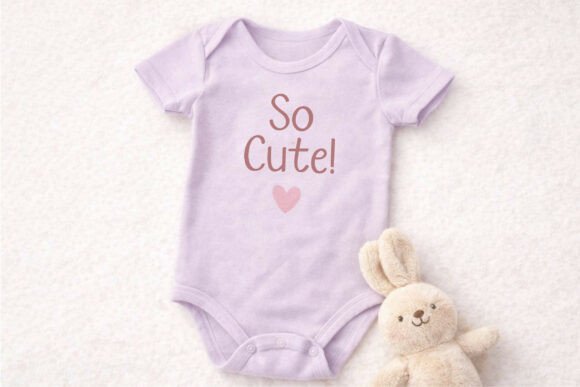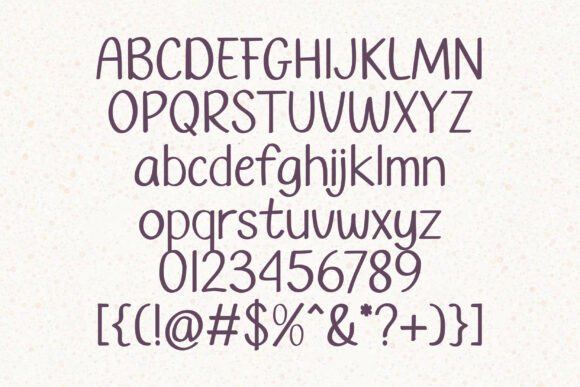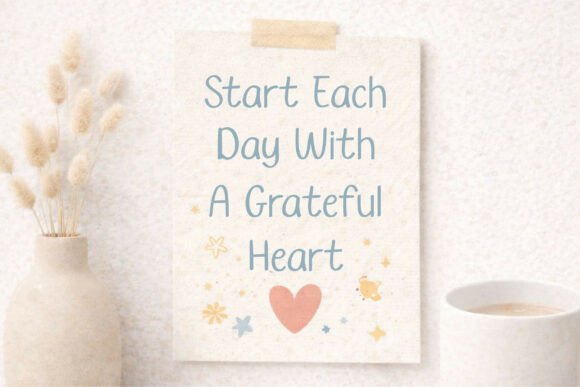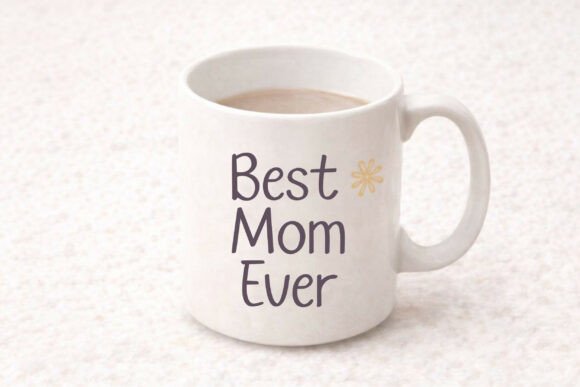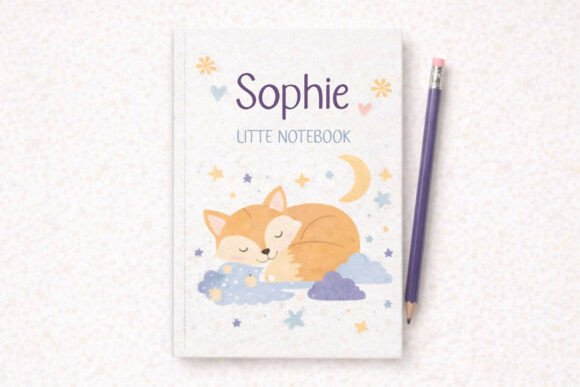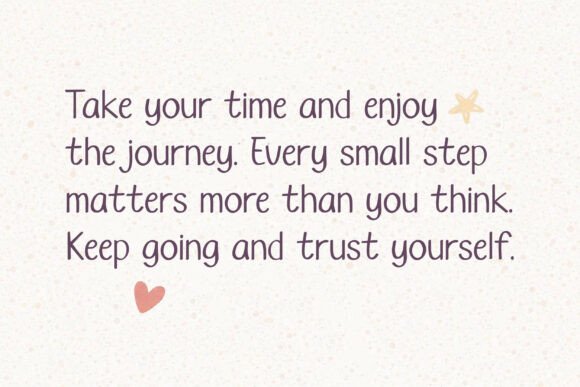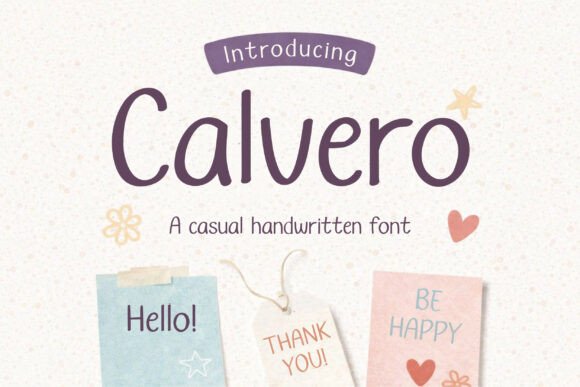
Introducing Calvero Font: The Perfect Handwritten Font for Designers and Crafters
Are you looking for a font that can add a personal touch to your designs? Do you want to create projects that feel warm, friendly, and approachable? Look no further than Calvero Font, a casual handwritten font that is perfect for a wide range of design applications.
What is Calvero Font?
Calvero Font is a beautifully designed handwritten font that has a natural, friendly, and everyday feel. It is designed to look like neat handwriting, making it easy to read while still keeping a warm and personal touch. This font is perfect for creatives, teachers, small business owners, and designers who want a handwritten look that feels authentic, soft, and approachable.
Features of Calvero Font
Calvero Font comes with a range of features that make it a versatile and practical choice for designers and crafters. Some of its key features include:
- Uppercase & lowercase letters
- Numbers
- Basic punctuation
- Clean handwritten style
- Easy to read & versatile
Calvero Font is a highly versatile font that can be used for a wide range of design applications. Its simple and relaxed style makes it suitable for both digital and printable projects. Here are some ideas for how you can use Calvero Font:
- Quotes: Add a personal touch to your inspirational quotes and make them feel more relatable.
- Notes: Use Calvero Font to add a friendly and approachable feel to your notes and to-do lists.
- Planners: Create beautiful and functional planners that feel personal and authentic.
- Kids projects: Calvero Font is perfect for kids projects, such as worksheets, activity sheets, and educational resources.
- Greeting cards: Add a personal touch to your greeting cards and make them feel more special.
- Posters: Create eye-catching posters that feel friendly and approachable.
- Social media graphics: Use Calvero Font to add a personal touch to your social media graphics and make them feel more relatable.
- Notebooks: Create beautiful and functional notebooks that feel personal and authentic.
- Mugs: Add a personal touch to your mug designs and make them feel more special.
- Baby products: Calvero Font is perfect for baby products, such as baby shower invitations, birth announcements, and nursery decor.
- Handmade designs: Use Calvero Font to add a personal touch to your handmade designs, such as craft tutorials, patterns, and instructions.
Why Choose Calvero Font?
There are many reasons why Calvero Font is a great choice for designers and crafters. Here are a few:
- Authentic handwritten look: Calvero Font has a genuine handwritten look that feels authentic and personal.
- Easy to read: Calvero Font is easy to read, making it perfect for body text and other applications where readability is important.
- Versatile: Calvero Font can be used for a wide range of design applications, from digital projects to printable resources.
- Clean and simple design: Calvero Font has a clean and simple design that makes it easy to use and versatile.
Calvero Font is a beautiful and versatile handwritten font that is perfect for designers and crafters. Its natural, friendly, and everyday feel makes it suitable for a wide range of design applications, from quotes and notes to planners and greeting cards. With its authentic handwritten look, easy readability, and clean design, Calvero Font is a great choice for anyone looking to add a personal touch to their designs.